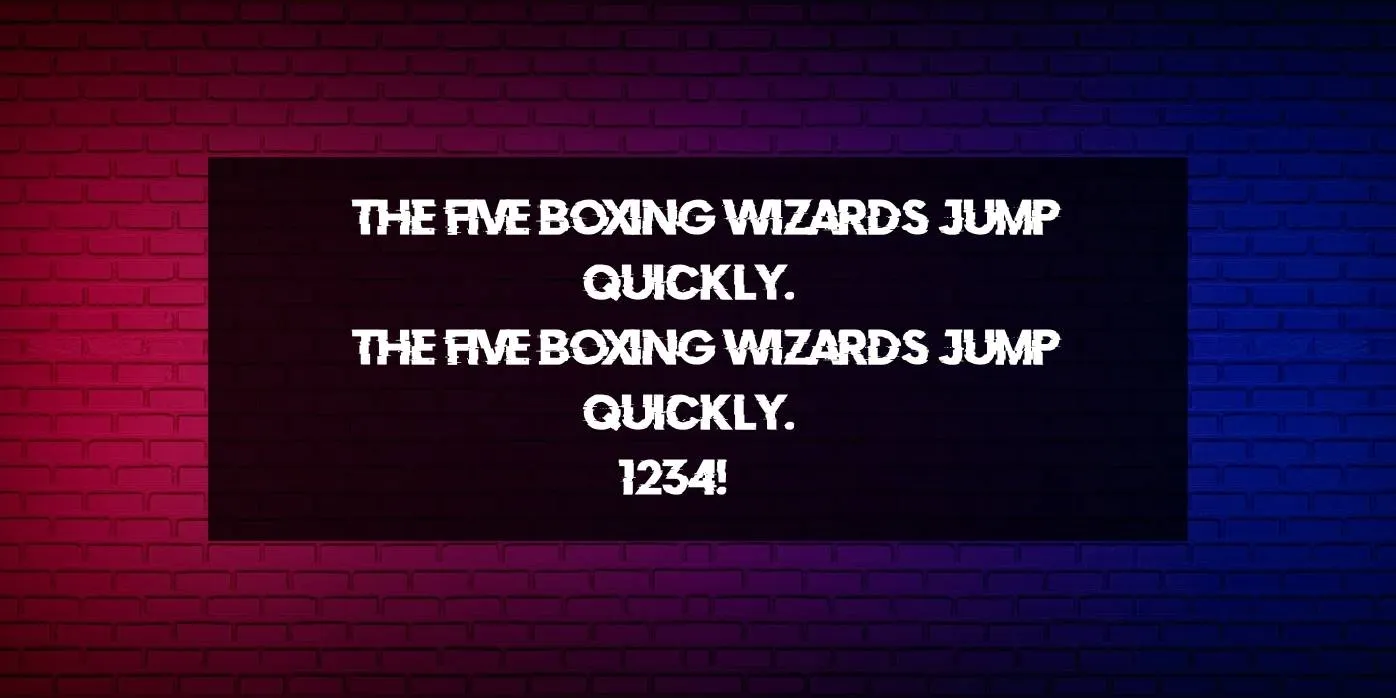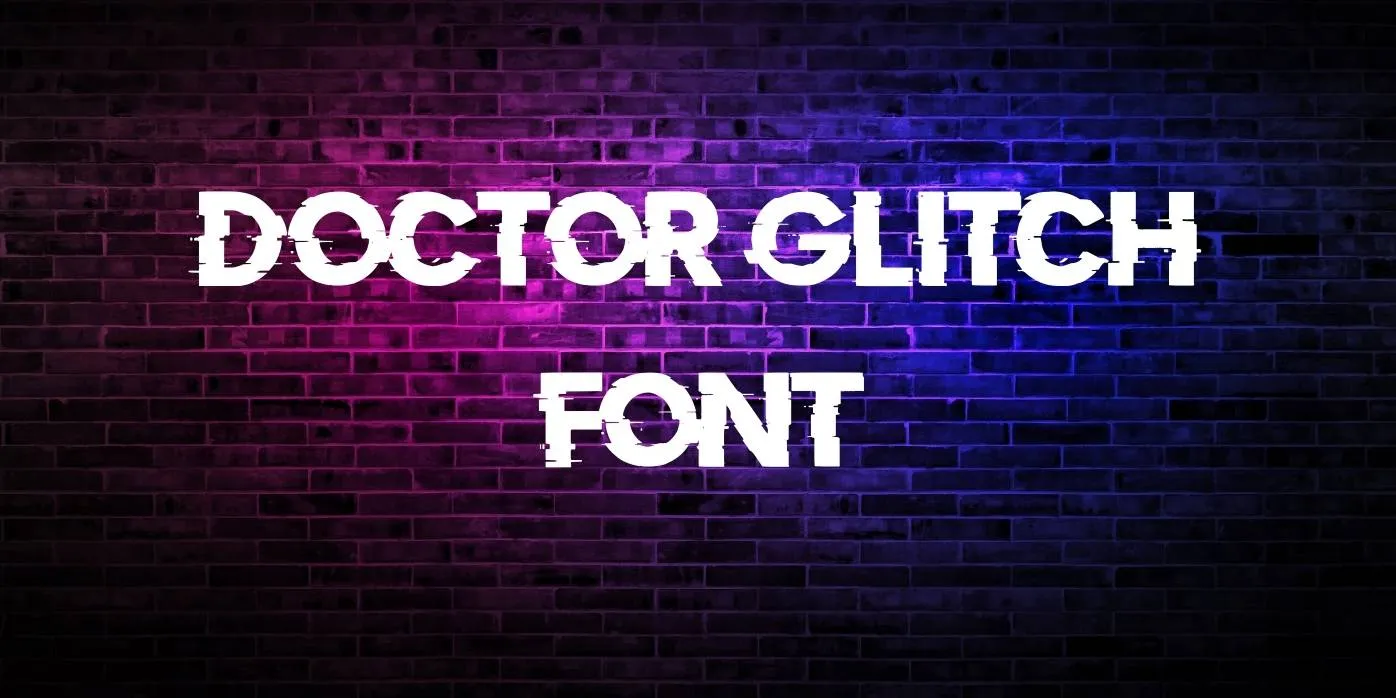
Doctor Glitch Font
Doctor Glitch font belongs to the fancy fonts family. This typeface was developed by Woodcutter. It contains upper and lower-case letters, numbers, and symbols. You can use this font for various purposes such as headlines, logos, posters, etc.
This family is well specified for the CSS. Doctor glitch Typeface is available in different sizes and weights to create unique effects. You can also add different colors to this font to make it more attractive. This font is perfect for creating vintage and retro designs.
If you are looking for a font with a unique style, then Doctor glitch Typeface is the perfect choice for you. Another similar font which is bentham regular font is perfect for different designs. This typeface has unique glyphs that give it a distinctive look. The letters are designed with a rough edge to create an aged effect.